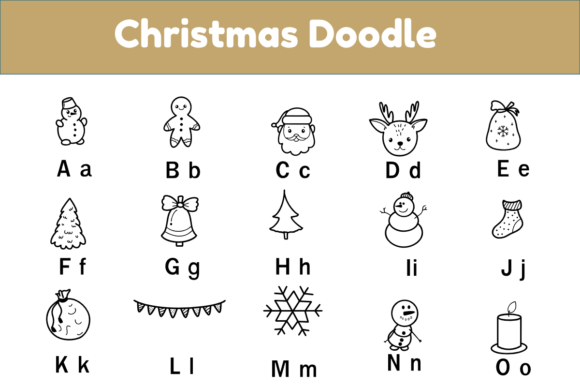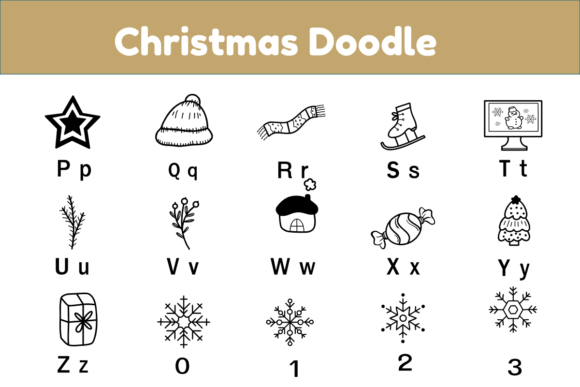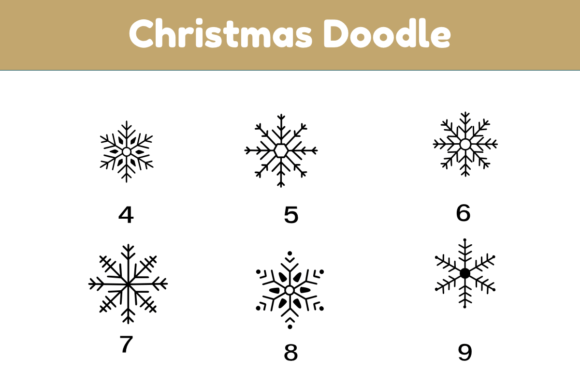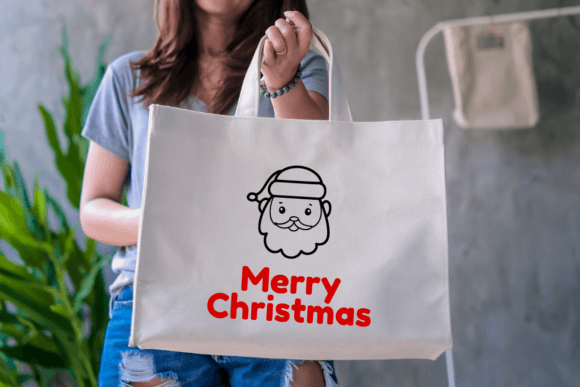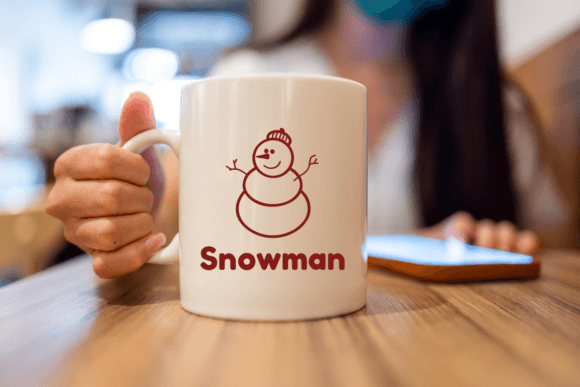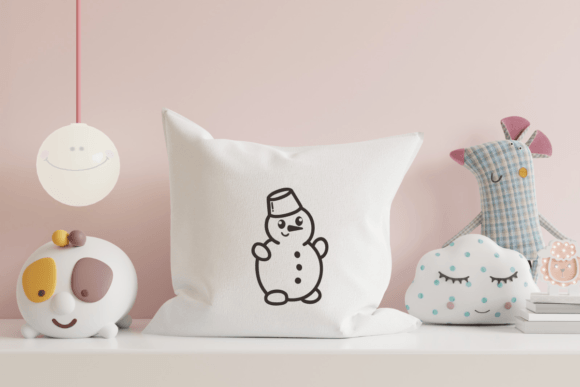
The Magic of Christmas Font: Elevate Your Holiday Projects
Have you ever found yourself rummaging through your craft supplies, searching for the perfect embellishment to make your DIY project stand out? Maybe it’s a festive garland, a handmade ornament, or a custom wedding invitation – whatever it is, the right touch can make all the difference. That’s where the Christmas Font comes in.
This delightful dingbats font is specifically designed to add a touch of holiday cheer to your creative projects. With its festive theme and playful characters, the Christmas Font is perfect for enhancing your wedding invitations, DIY crafts, decorations, logos, and many other creative ideas. As a designer, you know how valuable it is to have the right tools at your disposal – and the Christmas Font is an invaluable addition to any designer’s toolkit.
Key Features of Christmas Font
- Unique Characteristics: The font features a festive and playful design, with intricate details and ornaments that evoke the spirit of Christmas.
Christmas Font Review
Overall, I think the Christmas Font is a fun, playful addition to any holiday design project. Here are some of its strengths:
- ✨ The font is extremely festive and sets the right tone for any Christmas-related design project.
- ✨ The font comes in a range of styles, from bold and playful to elegant and sophisticated.
- ✨ The font is highly customizable, allowing designers to adjust the size, color, and spacing to fit their needs.
- ⚠️ The font may be too over-the-top for some designs, especially those that require a more subtle approach.
- ⚠️ Some of the styles may not be as versatile as others, limiting their use in certain design contexts.
Overall, I think the Christmas Font is a great choice for designers looking to add some holiday cheer to their projects. While it may not be perfect, its strengths far outweigh its limitations, and it’s sure to bring a smile to your clients’ faces.
Tips for Getting the Most Out of Christmas Font
Use Christmas font in conjunction with festive colors and graphics to create a holiday-themed design.
Experiment with different font sizes and styles to add visual interest to your design.
Combine Christmas font with other fonts to create a unique and eye-catching look.
Christmas font is commonly used for:
Holiday greeting cards and invitations
Seasonal marketing materials
Decorative typography for social media posts and websites
Festive signage and banners